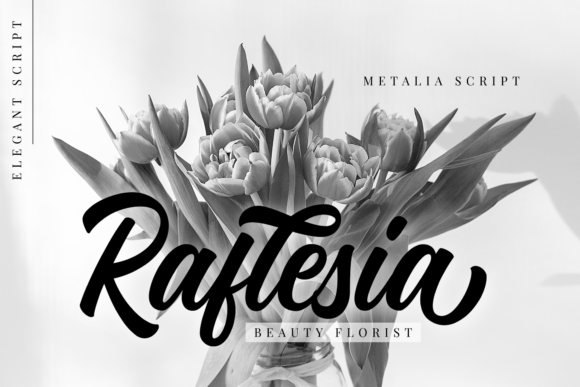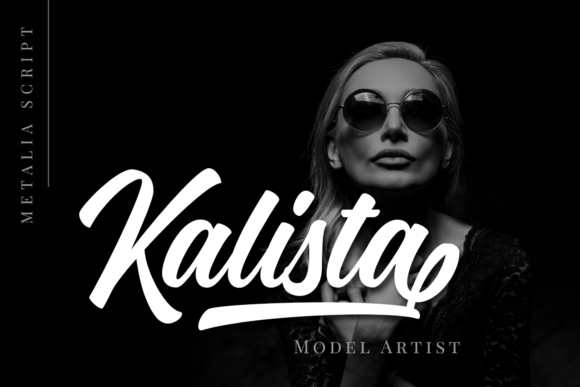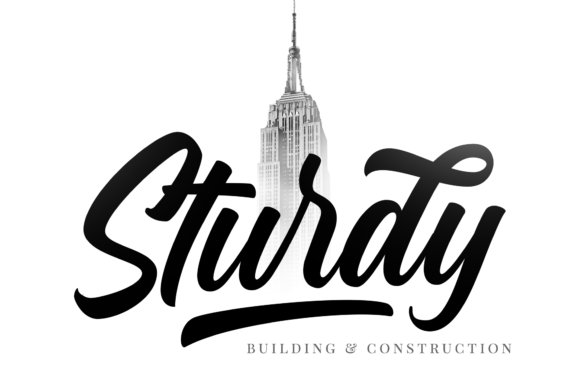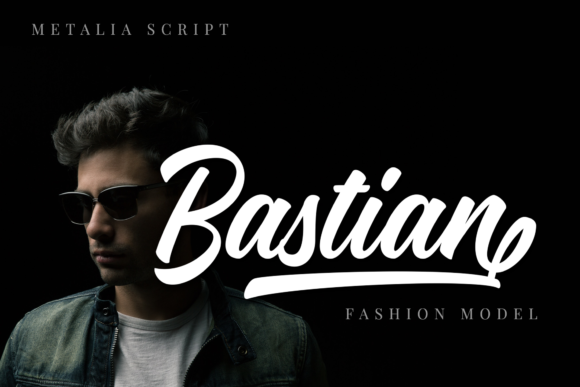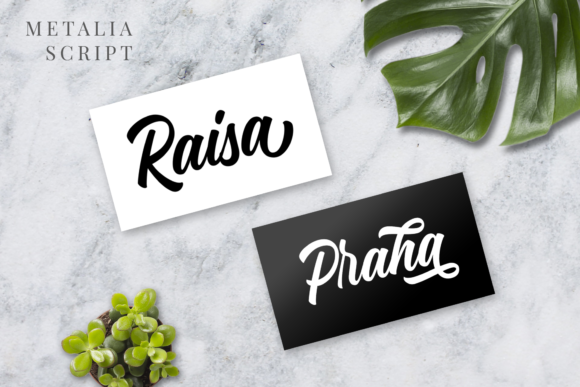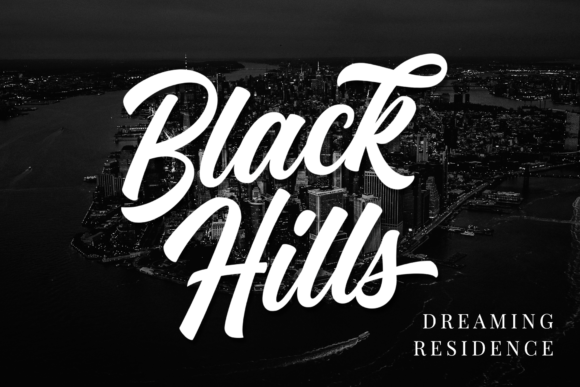
Introduction to Metalia Font
You’re browsing through your favorite design inspiration board, and suddenly, you stumble upon a stunning piece of art that leaves you speechless. The elegant handwriting, the delicate curves, and the subtle flair all come together to create a visual masterpiece. What if you could infuse that same level of sophistication into your own creative project?
Meet Metalia Font, a modern and classy handwritten font that’s about to revolutionize the way you design. This high-quality font is not just a design resource, but a key to unlocking your creative potential. With its transparent background and versatility, Metalia Font is the perfect addition to any project, from elegant invitations to stylish branding materials.
Key Features of Metalia Font
- Unique, modern font with a transparent background, perfect for adding a touch of elegance to any design
- Comes in 5 different font styles, including bold and italic options, to suit various design needs
- Designed to be highly legible and versatile, making it perfect for use in a variety of creative projects, from logos to brochures
Honest Review: Metalia Font
As a designer, I’m always on the lookout for high-quality design resources to elevate my creative projects. The Metalia Font has caught my attention, and I’m excited to share my honest review.
- ✨ Unique and modern design aesthetic that adds a touch of sophistication to any project
- ✨ High-quality font that renders well on both digital and print materials
- ✨ Transparent background option, allowing for seamless integration with other design elements
- ⚠️ Limited character set, which may not be ideal for projects that require a wide range of characters
- ⚠️ Not as versatile as other fonts in terms of font styles and weights
Overall, the Metalia Font is a solid choice for designers looking for a modern and high-quality font for their creative projects. While it has some limitations, its unique design aesthetic and free download option make it a great design resource to have in your collection.
To get the most out of the Metalia Font, use it for headings, titles, and other prominent text elements. You can also use it for creating logos, branding materials, and other design elements. Some common use cases include wedding invitations, business cards, and product packaging.
Yes, the Metalia Font is designed to work well with transparent backgrounds. Since the font has a high level of detail and a transparent background, it’s perfect for designers who want to create visually appealing designs with a lot of depth and dimension. Simply install the font on your computer, and you can use it in your favorite design software, such as Adobe Photoshop or Illustrator.